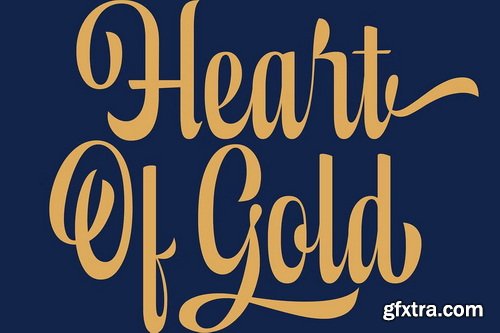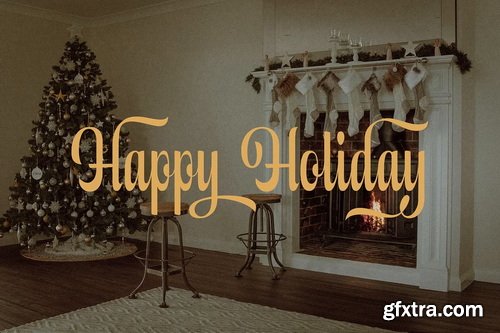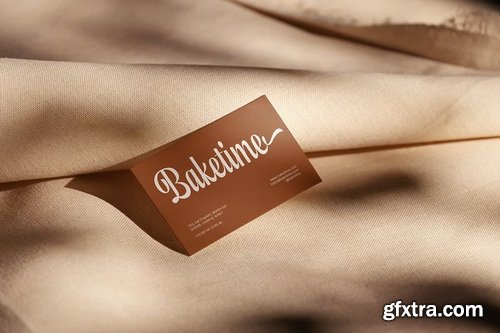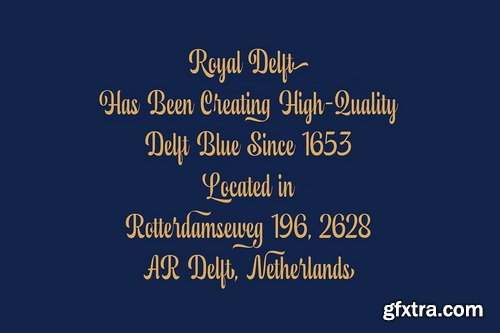
CreativeMarket - ED Fenelton - Classy Script Font
Fenelton is a script font that combines casual and elegant impressions. Equipped with OpenType features such as Stylistic Set ( 180+), and Ligature, and also multi-language support, it allows you to create a variety of interesting writing displays according to your design needs with this font. This font is perfect for your creative projects such as Logotype, printed quotes, invitations, cards, product packaging, headers, Letterhead, Apparel, Web design, Magazine, Book, etc.